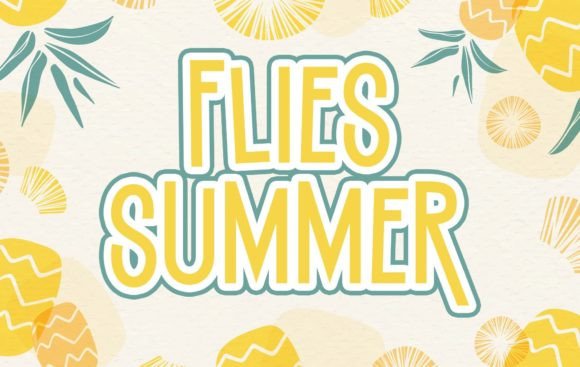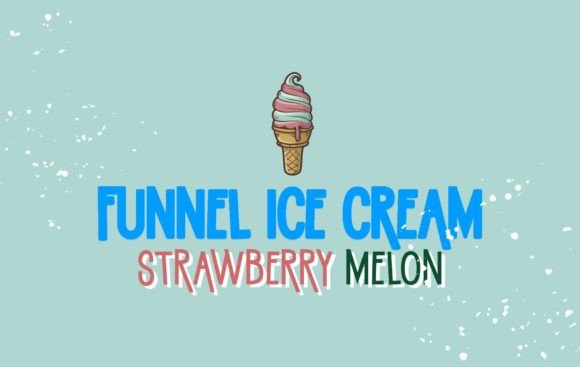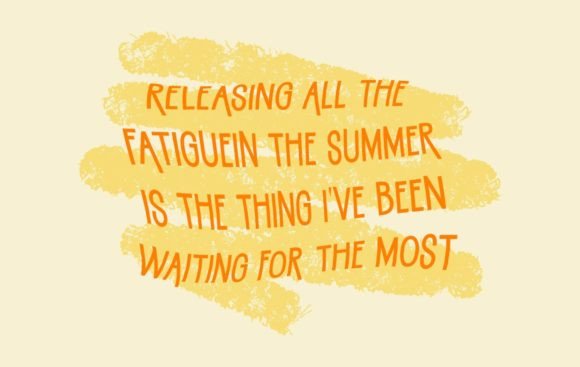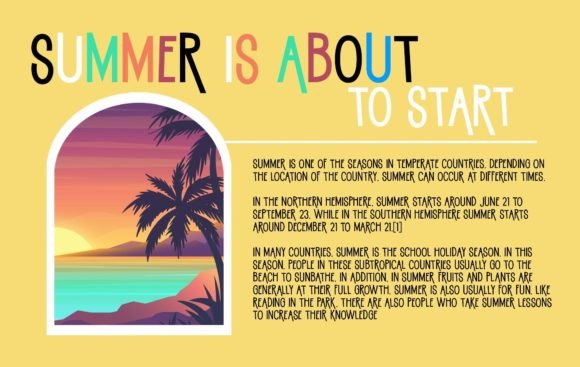
Flies Summer Font
About the Flies Summer Font
The wait is over! The incredible Flies Summer Font is now available for your design toolkit. Flies Summer is a fun and whimsical display font. A little bit quirky, this font looks incredibly adept in a wide variety of contexts!
Flies Summer excels as a display font for headlines, short taglines, and branding elements where a playful, quirky aesthetic is desired. Its unique character shines in posters, packaging for whimsical products, and social media graphics. However, its highly decorative nature makes it unsuitable for body text or UI elements requiring high readability.
The font’s whimsical personality pairs well with clean sans-serif fonts like Open Sans for a balanced contrast, or a more geometric sans-serif like Montserrat for a modern feel. For a sophisticated touch, consider pairing it with a classic serif like Garamond, letting Flies Summer’s playful energy offset the serif’s formality.
Flies Summer projects a light-hearted, fun, and slightly mischievous personality. It’s ideal for brands targeting a younger demographic or those wishing to convey a sense of joy and creativity.
Flies Summer Font Usage Examples
Flies Summer Font Example